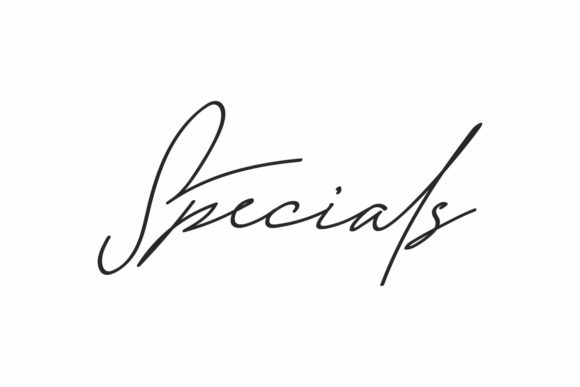
Unveil your creativity with Specials Font, a contemporary script font that effortlessly blends elegance and charm. Designed by the talented NihStudio, Specials is a visual masterpiece that will transform your digital creations into captivating works of art.
Immerse yourself in the beauty of Specials' meticulously crafted characters, each one a testament to the dedication and artistry poured into its creation. From its graceful curves to its playful flourishes, Specials possesses a captivating allure that will leave you mesmerized. Whether you're a seasoned designer or just starting your creative journey, Specials is the perfect companion for a wide range of projects.
With its intuitive design and effortless flow, Specials seamlessly adapts to any project, breathing life into your designs with its timeless allure. Whether you're crafting eye-catching logos, captivating social media graphics, or personalized invitations, Specials Font will elevate your work to new heights of sophistication.
Express your individuality and leave a lasting impression with Specials Font. Its unique charm and versatility make it the ideal choice for creatives seeking to add a touch of timeless elegance to their designs. Embark on a creative adventure with Specials Font and witness the magic unfold as your designs come alive with beauty and grace.
Don't miss the opportunity to enhance your creative arsenal with Specials Font. Its PUA encoding ensures effortless access to a world of glyphs and swashes, empowering you to add intricate details and stunning embellishments to your projects with ease. Unleash your imagination and let Specials Font guide you towards creative excellence.